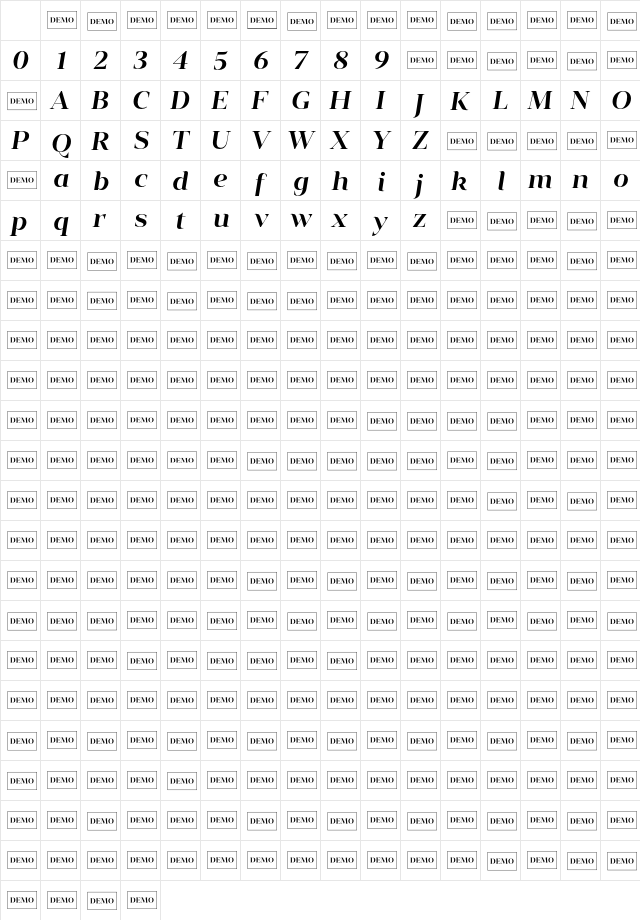
Vendura is a composed and adaptable typeface that performs quietly and consistently across a wide range of design contexts. The slanted form adds forward momentum and visual energy. Its bold stroke weight gives it real presence on the page.
Pro Tip: Use Vendura for emphasis, pull quotes, and subheadings where its slanted energy can add rhythm to the layout.